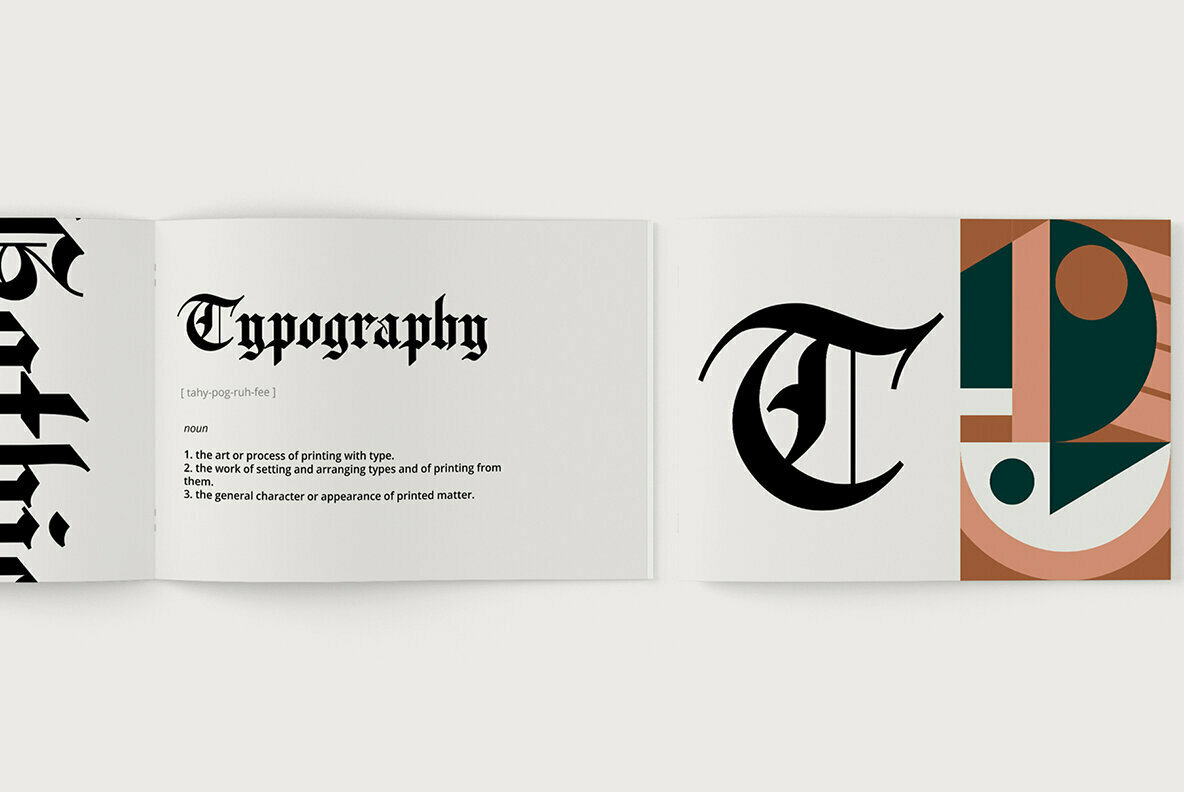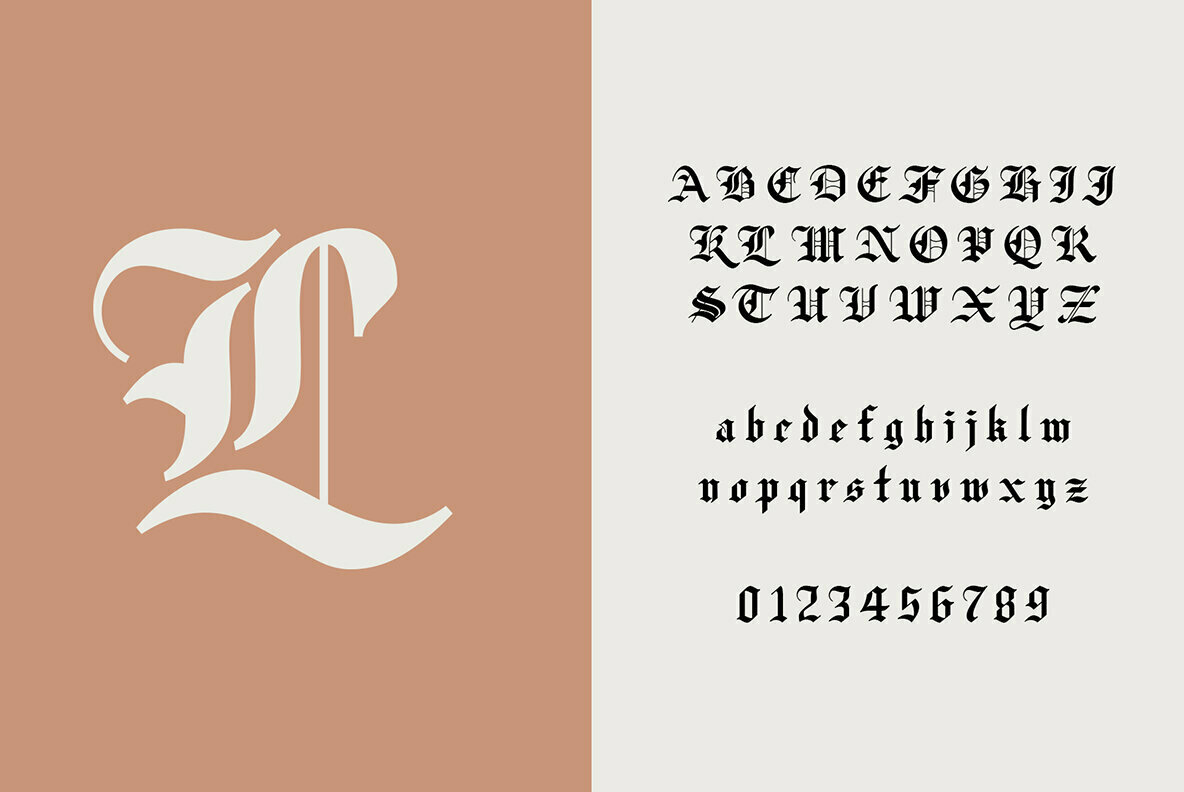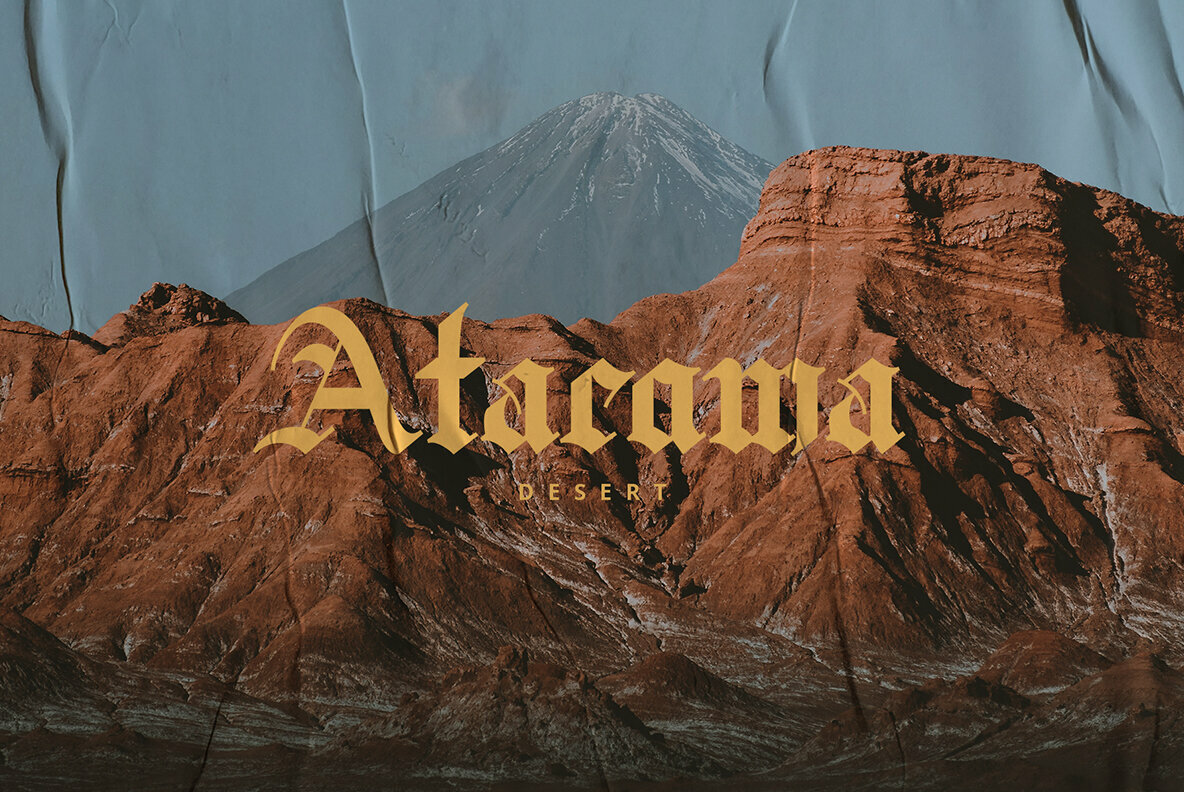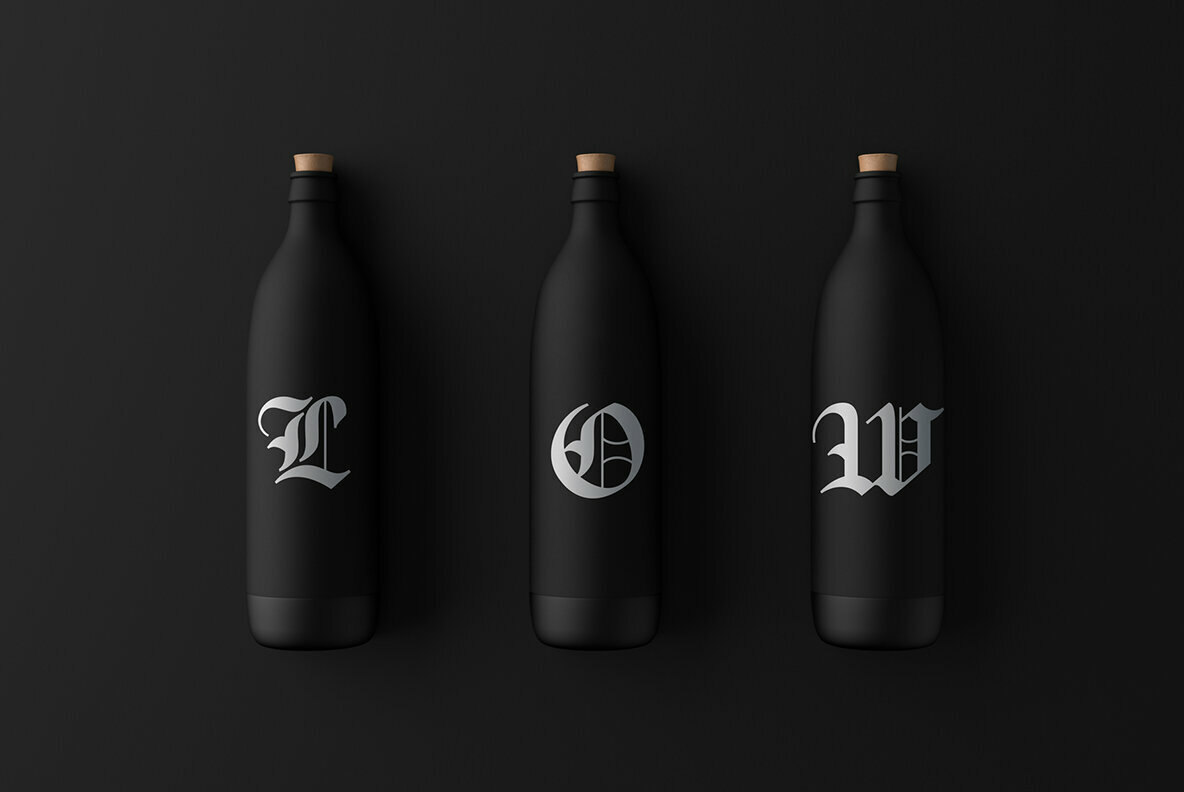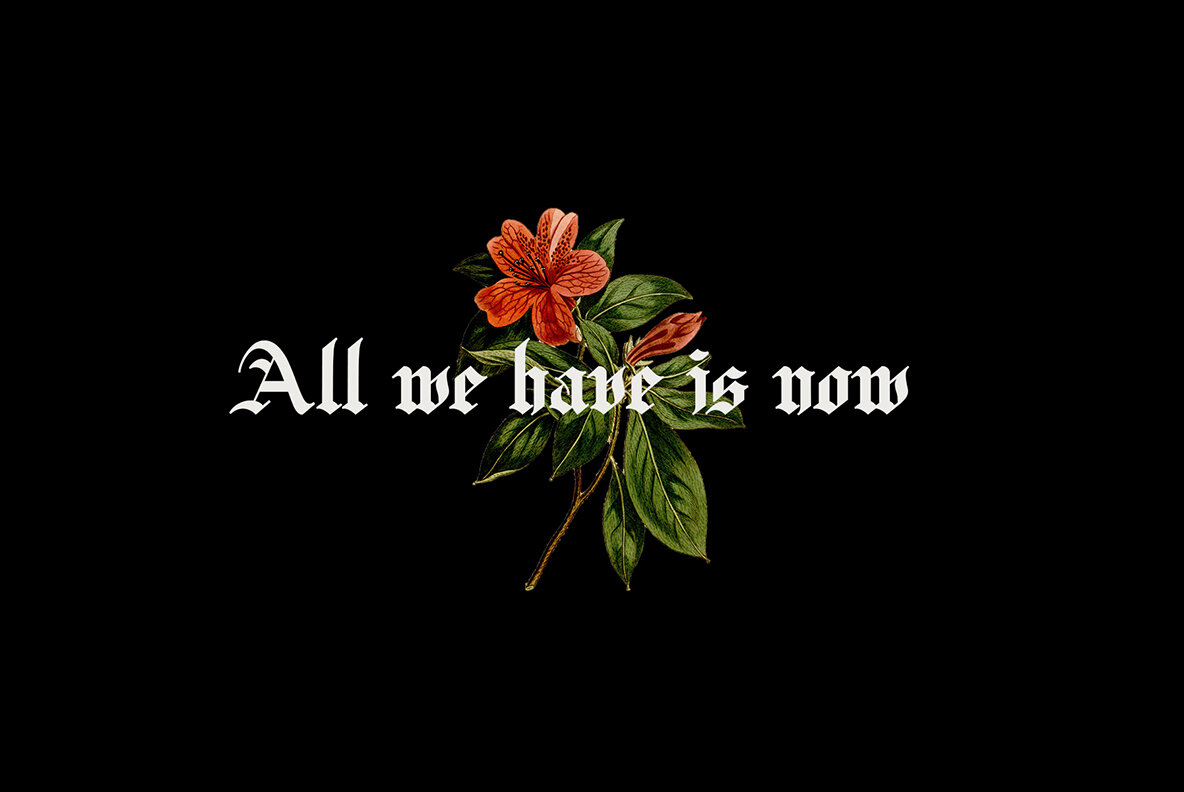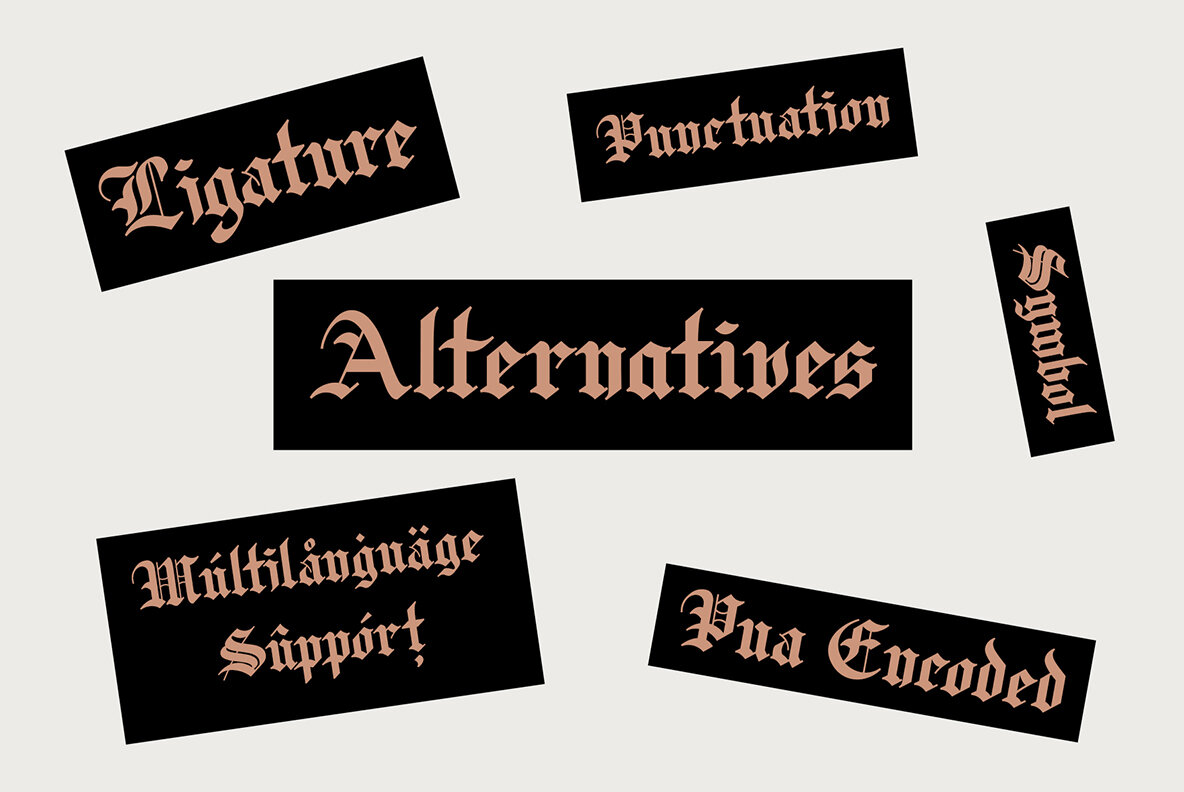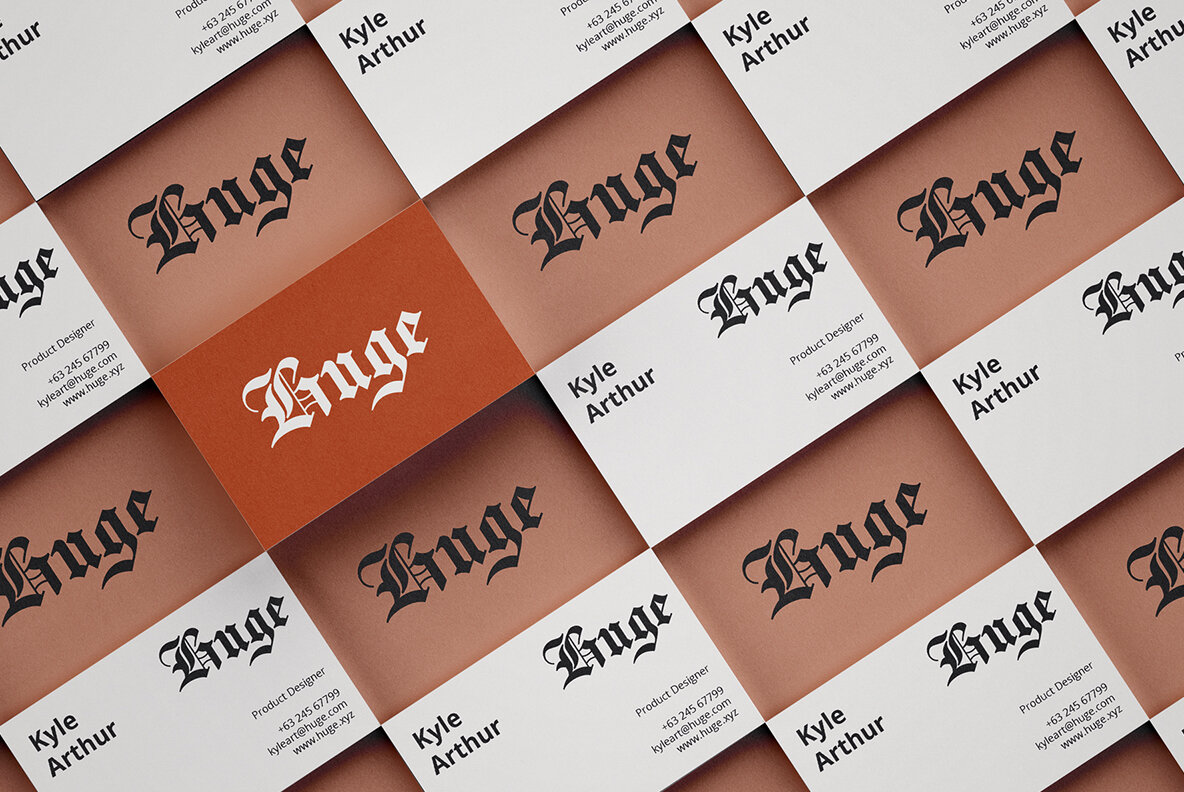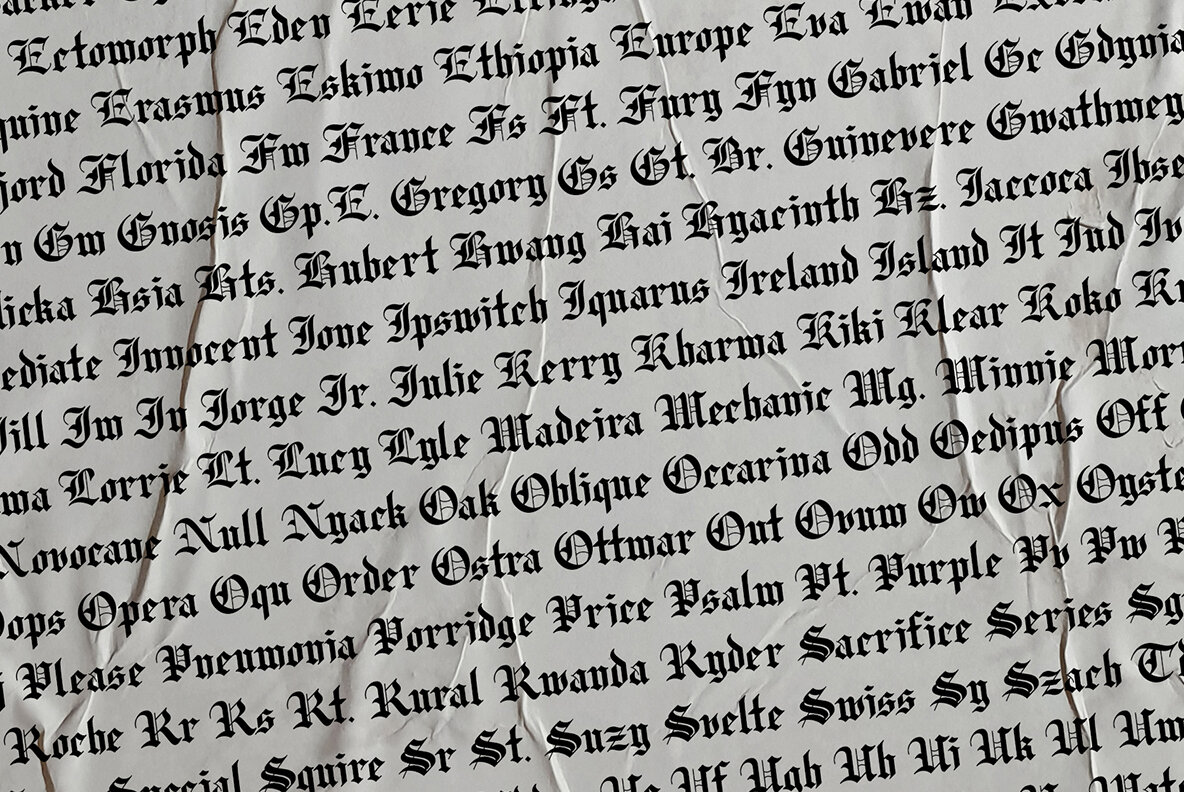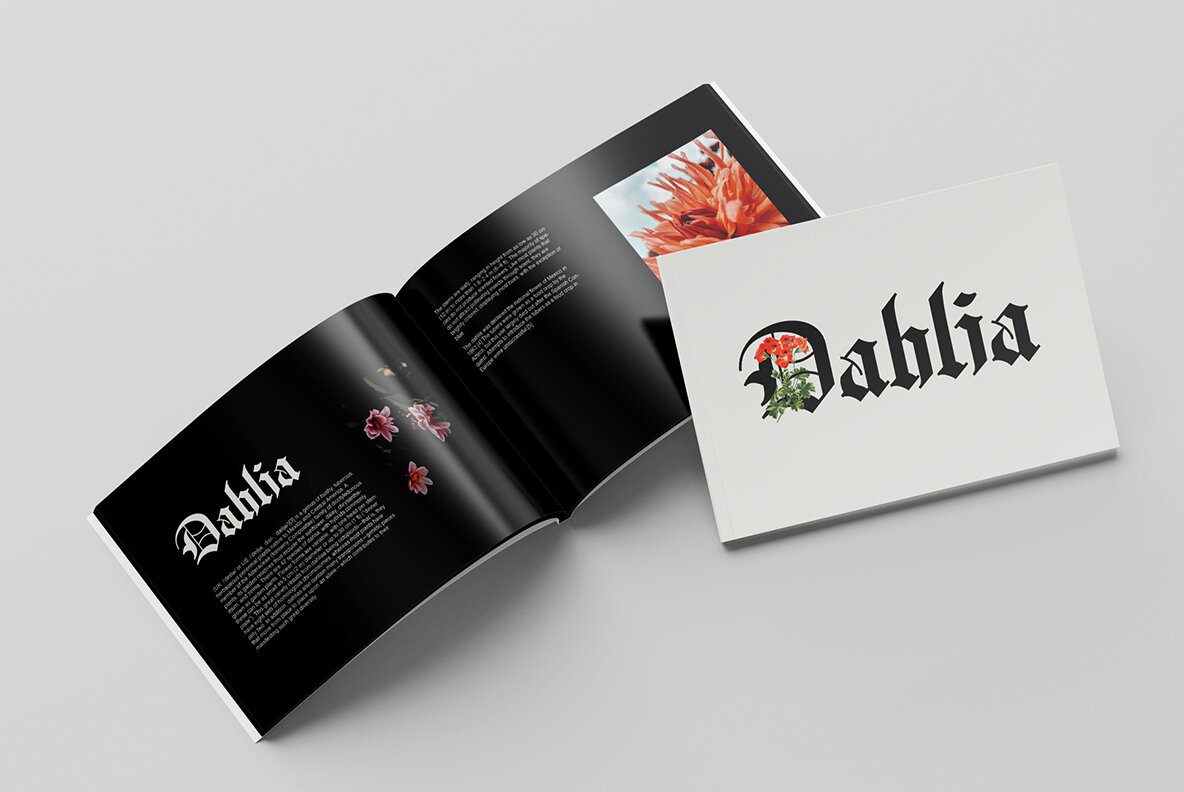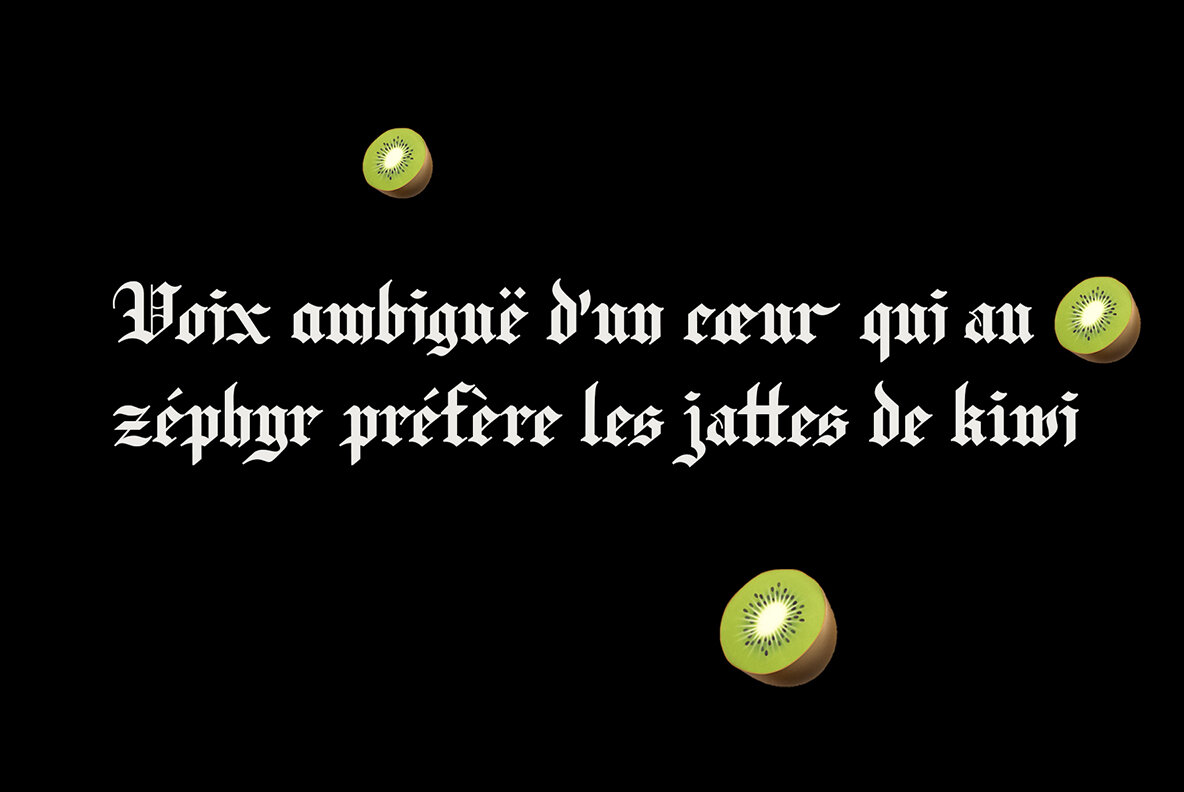
Fullerton Next Font
Fullerton Next is a font remake of Fullerton typeface, there are many that are made again such as uppercase, lowercase, kerning, stylistic set, ligature, multi-language. besides this font is also made so that it is easily combined with other fonts.
This font is perfect for your graphic design needs, such as branding, cards, magazines, posters, logos, apparel, books, etc.
Featured:
- Stylistic set
- Multi-language support